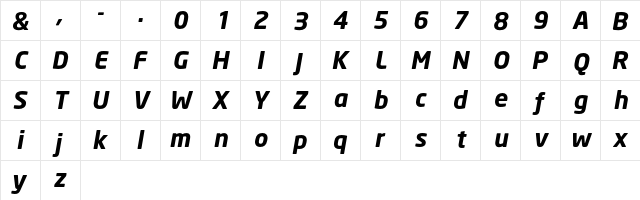
NeoSans Bold Italic
Design Context for NeoSans Typeface
NeoSans offers clean, dependable letterforms without strong stylistic allegiance, making it a practical choice for designers who need flexibility. The slanted form adds forward momentum and visual energy. Its bold stroke weight gives it real presence on the page.
Pro Tip: Try NeoSans for annotation and caption copy alongside an upright companion — the contrast in angle creates a dynamic but ordered typographic system.